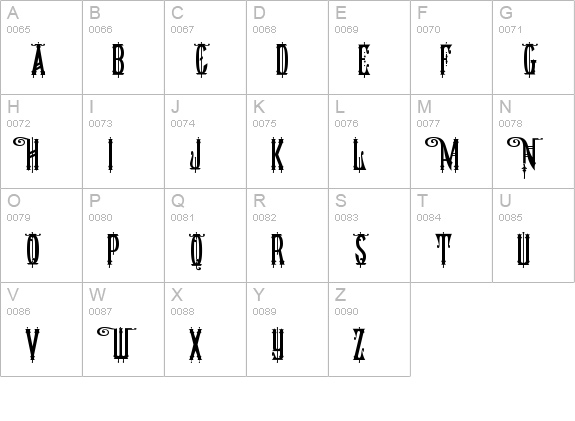
American West Font Details
American West font captures the essence of the rugged and adventurous spirit of the American West. With its bold and rustic appearance, this font embodies the untamed beauty of the wild frontier. The distinct vintage style of American West font adds a touch of nostalgia and authenticity to any design project, making it perfect for Western-themed designs, posters, logos, and more. The best part? American West font is available for free download at FontsMarket.com. Don't miss the chance to add this stunning typeface to your collection and bring a piece of the American West into your creative endeavors.